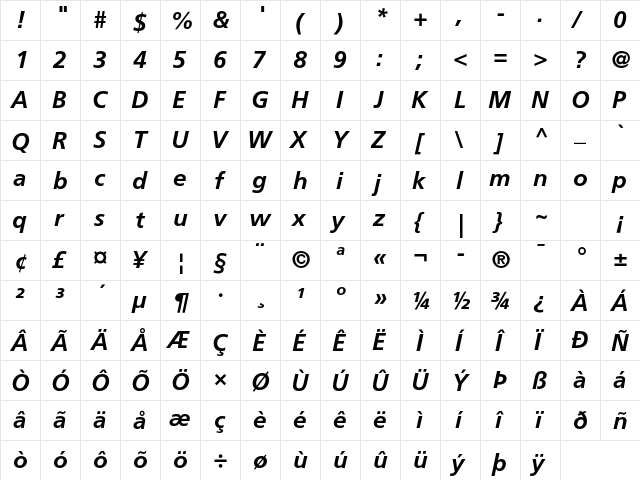
Frutiger LT Std 66 Bold Italic
| Designer | Adrian Frutiger |
Design Context for Frutiger LT Std Typeface
Frutiger LT Std offers clean, dependable letterforms without strong stylistic allegiance, making it a practical choice for designers who need flexibility. The slanted form adds forward momentum and visual energy. Its bold stroke weight gives it real presence on the page.
Pro Tip: Try Frutiger LT Std for annotation and caption copy alongside an upright companion — the contrast in angle creates a dynamic but ordered typographic system.